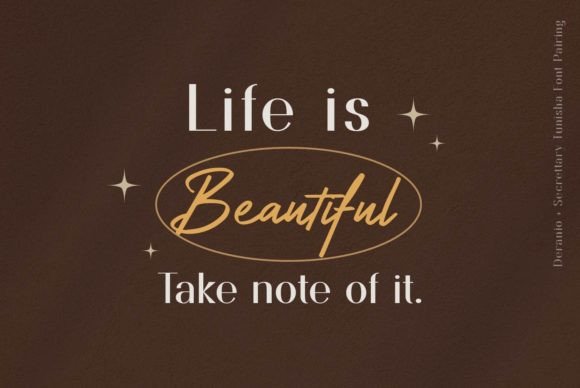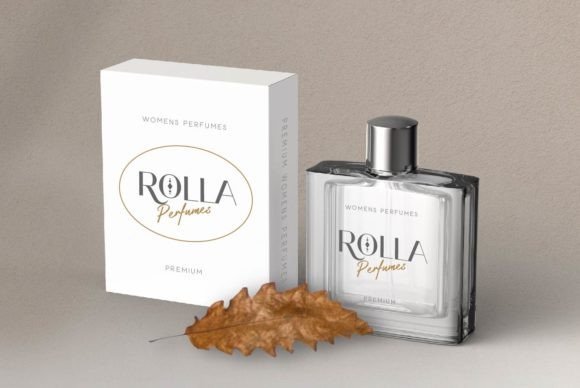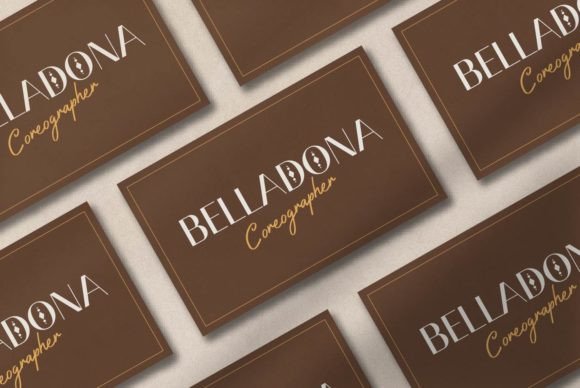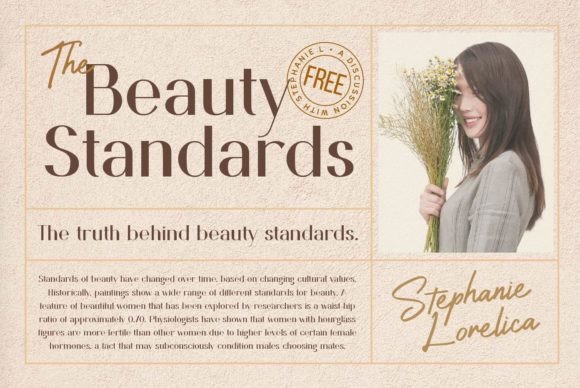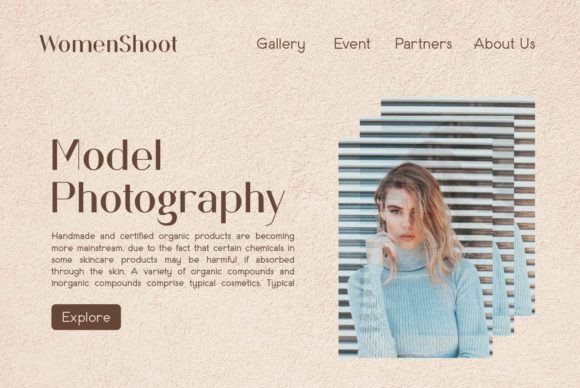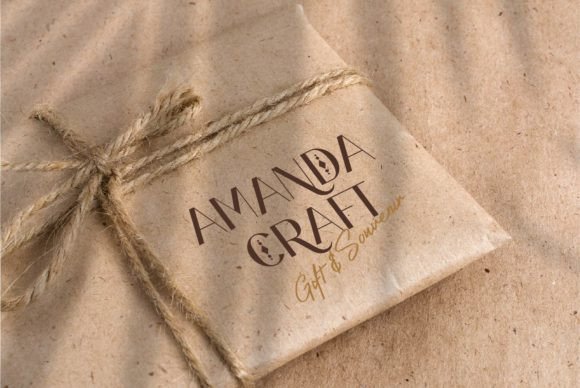
Introduction to Deranio Font
Remember that moment when you stared at a blank canvas, waiting for inspiration to strike? For designers, it’s a familiar feeling – the thrill of bringing a new idea to life. The right font can be the spark that sets the creative process ablaze. If you’re on the hunt for a font that can elevate your design game, look no further than the stunning Deranio Font.
Deranio Font is more than just a beautiful sans serif typeface – it’s a design resource that can breathe new life into your creative project. Its unique characters and sleek design make it perfect for designers who want to stand out from the crowd. Whether you’re working on a logo, brochure, or digital product, Deranio Font is sure to impress with its high-quality aesthetic.
Key Features of Deranio Font
- Unique, hand-crafted design elements and ornaments, adding a touch of elegance to any creative project.
Honest Review: Deranio Font
I recently came across the Deranio Font while searching for a unique design resource for a creative project. As a designer, I appreciate a good free download, especially one that can elevate my work. In this review, I’ll share my honest thoughts on what works well and what could be improved.
- The Deranio Font has a high quality, modern aesthetic that’s perfect for trendy designs.
- The font is highly customizable, allowing for easy adjustments to suit your design needs.
- The font may not be suitable for complex or large-scale projects due to its relatively small character set.
- The font’s readability can be affected by certain background colors or patterns.
Overall, I’m impressed with the Deranio Font’s potential to add a touch of sophistication to my designs. While it has some limitations, it’s a great resource to have in my toolkit. I’d definitely recommend it for smaller, more creative projects where its unique style can shine.
Tips for Getting the Most Out of Deranio Font
To get the most out of the Deranio Font, use it with a transparent background to create a sleek and modern design. You can also use the font in combination with other design elements, such as images and graphics, to create a unique and eye-catching design.
The Deranio Font is commonly used in design projects that require a high-quality, modern font. Some common use cases include:
- Website headers and footers
Alternatives to Deranio Font
Montserrat Font is a sans-serif font that is perfect for creating a modern and sleek design. It is free to download and offers a transparent background, making it ideal for creative projects that require a clean and minimalistic look.
When to use: Use Montserrat Font for headings and titles in a high-quality design resource that requires a clean and modern aesthetic.
Comparison to Deranio Font: Montserrat Font is more geometric and modern compared to Deranio Font, making it a great alternative for designers who want a more contemporary look.